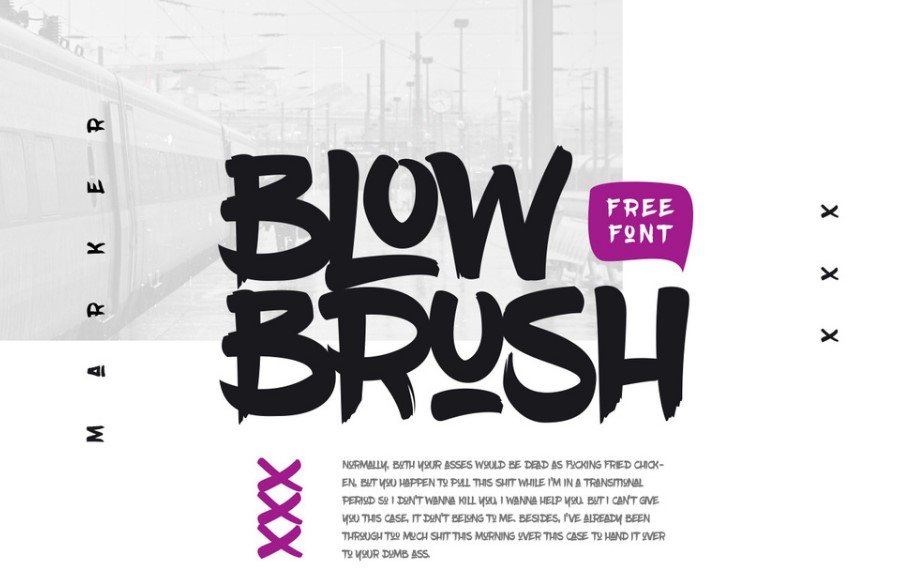
BlowBrush Font
About BlowBrush Font
Are you waiting for a best brush font that will help you to boost your efforts to convert it into attractiveness. The font can be used for varieties of projects. Lets welcome BlowBrush Font. You are the one of the great designers when you will use this font. This is superb and beautiful typeface which contains more glyphs and characters.
What Type of Font Is BlowBrush?
The BlowBrush Font is the famous and amazing brush typeface that can be use for different purpose.